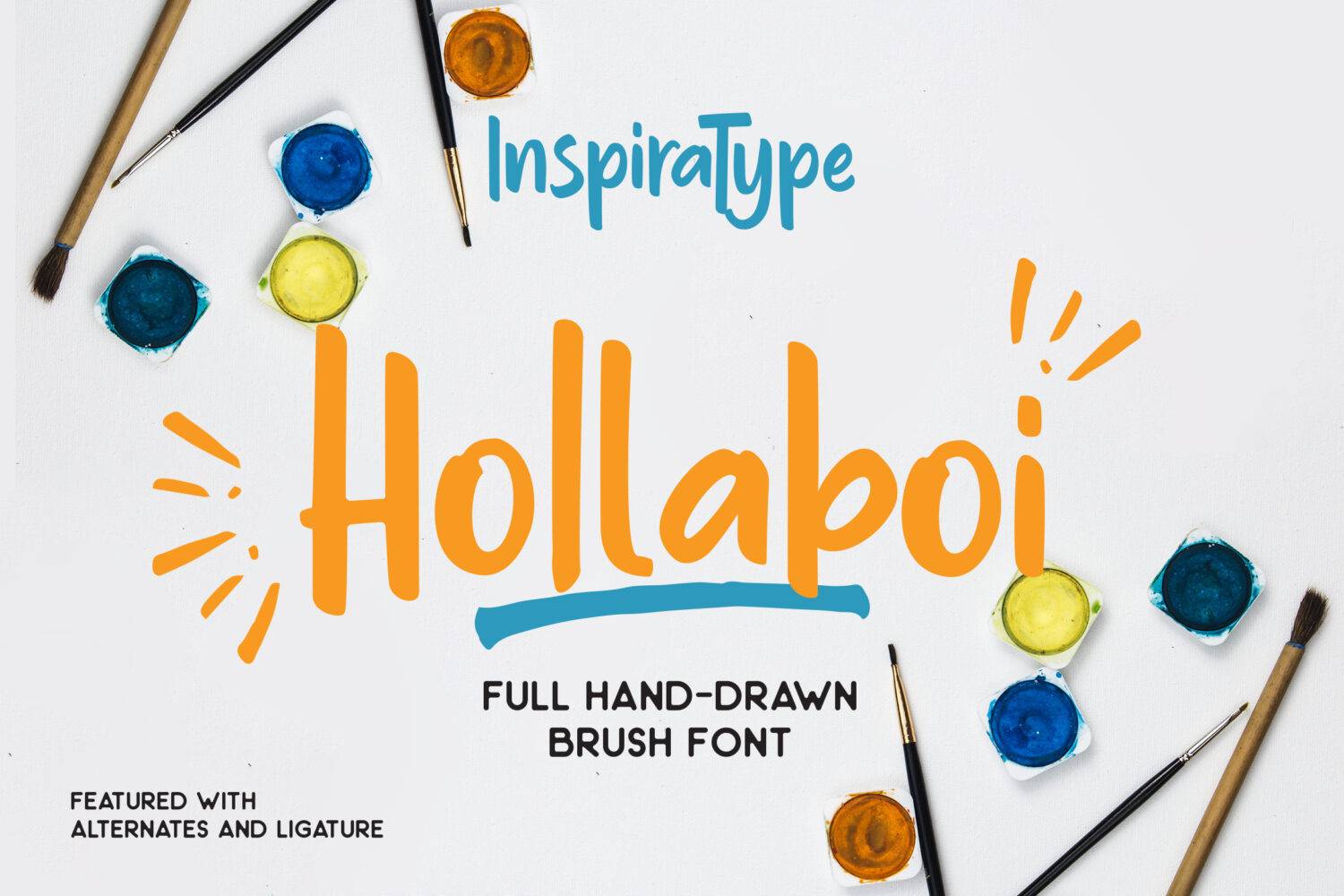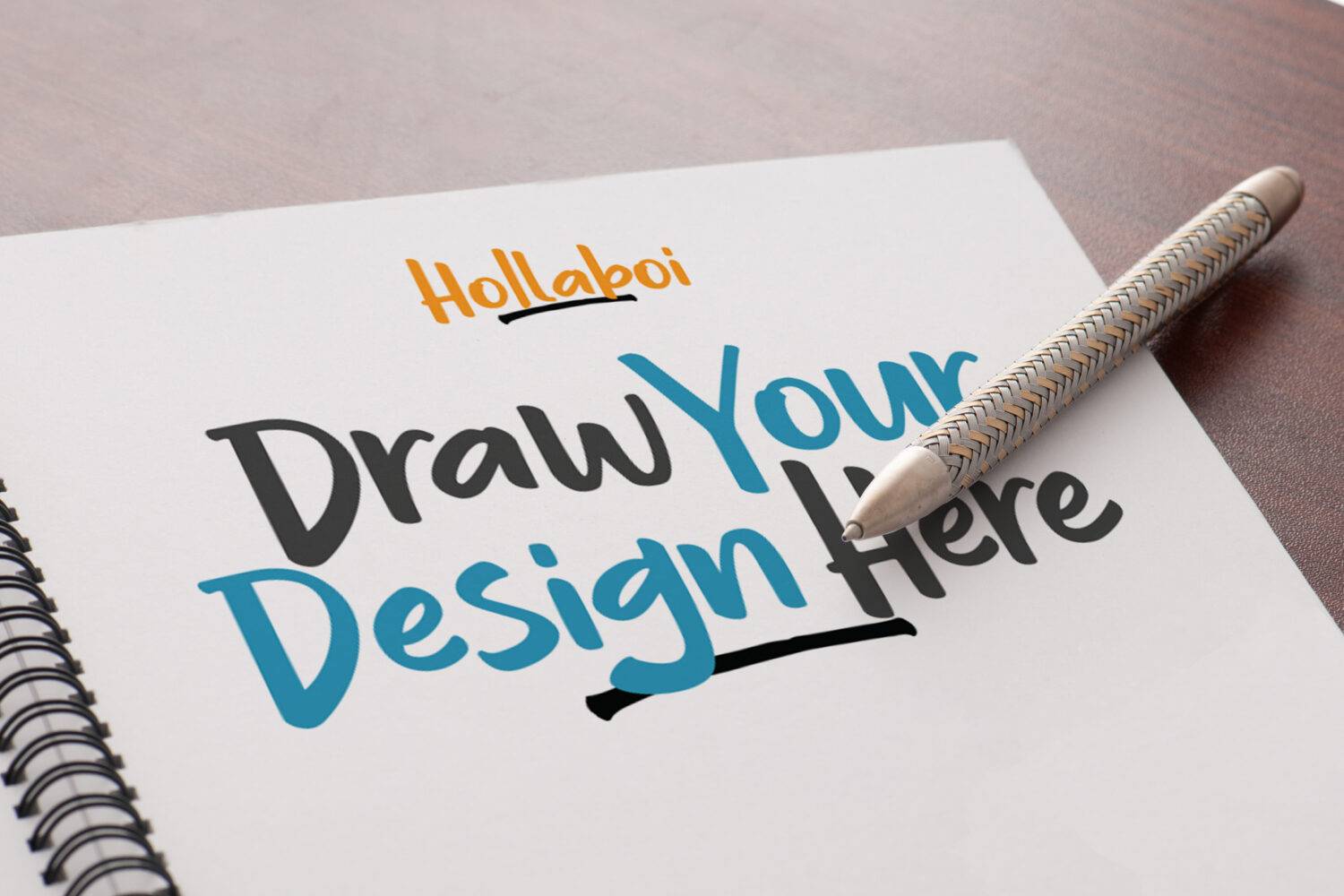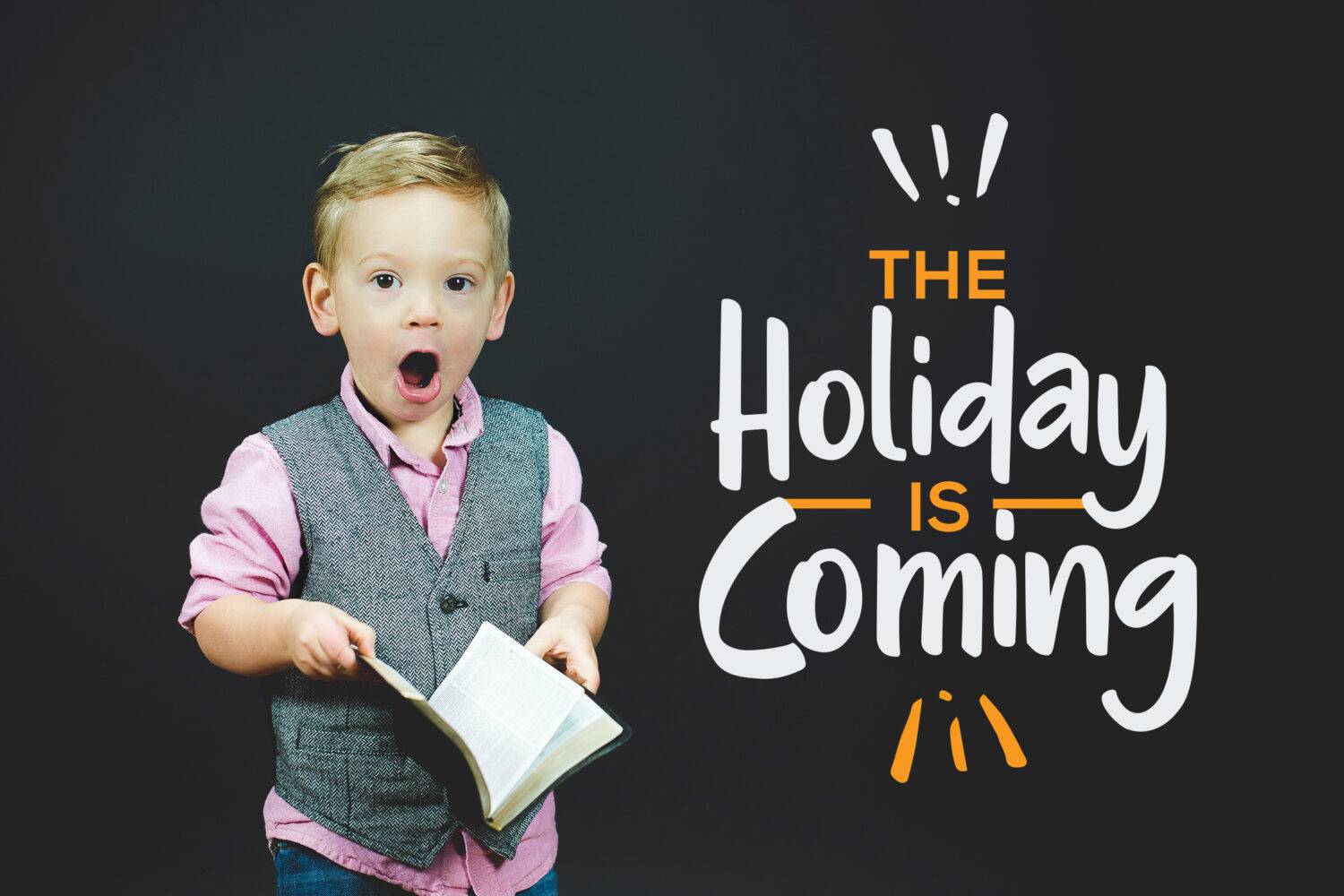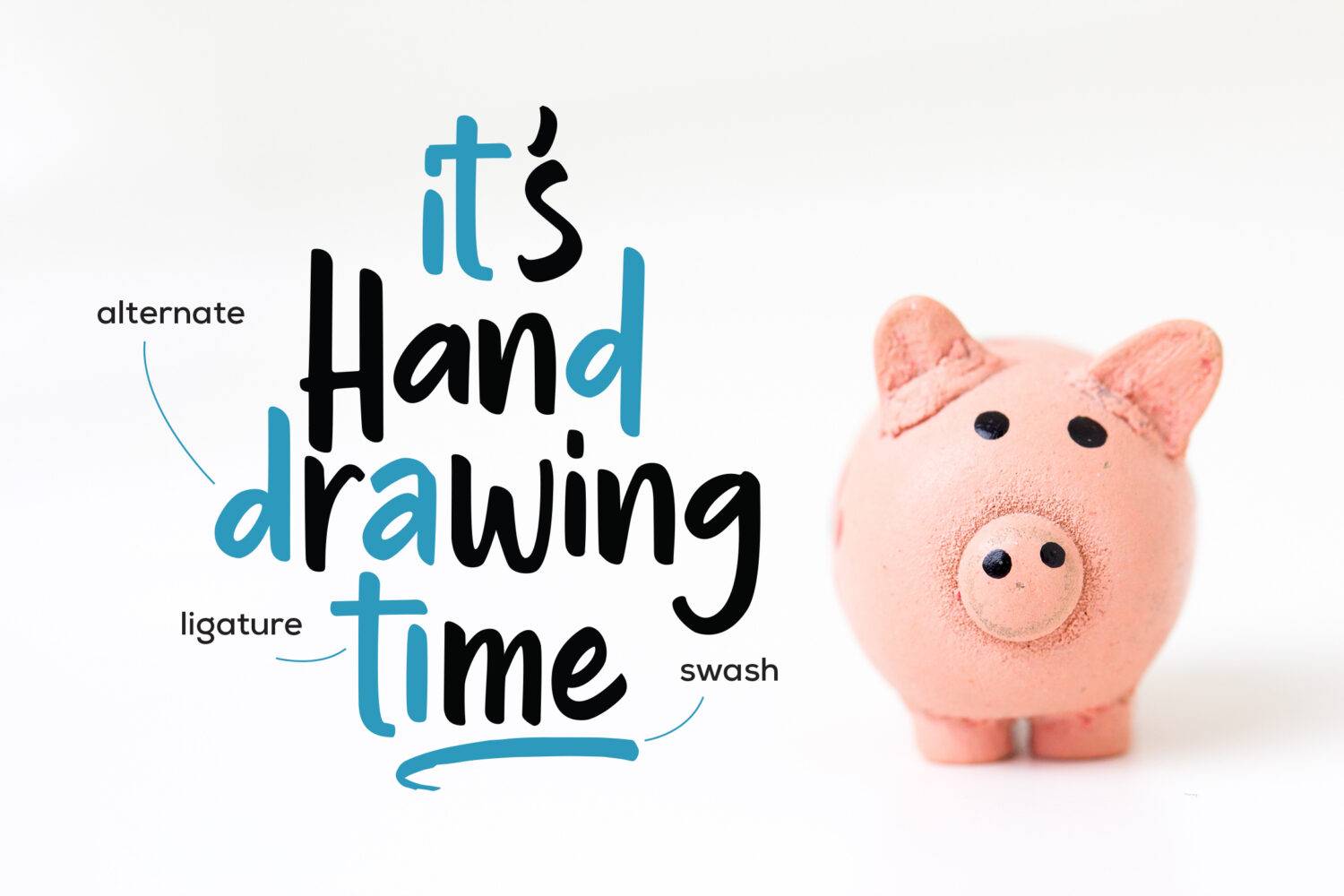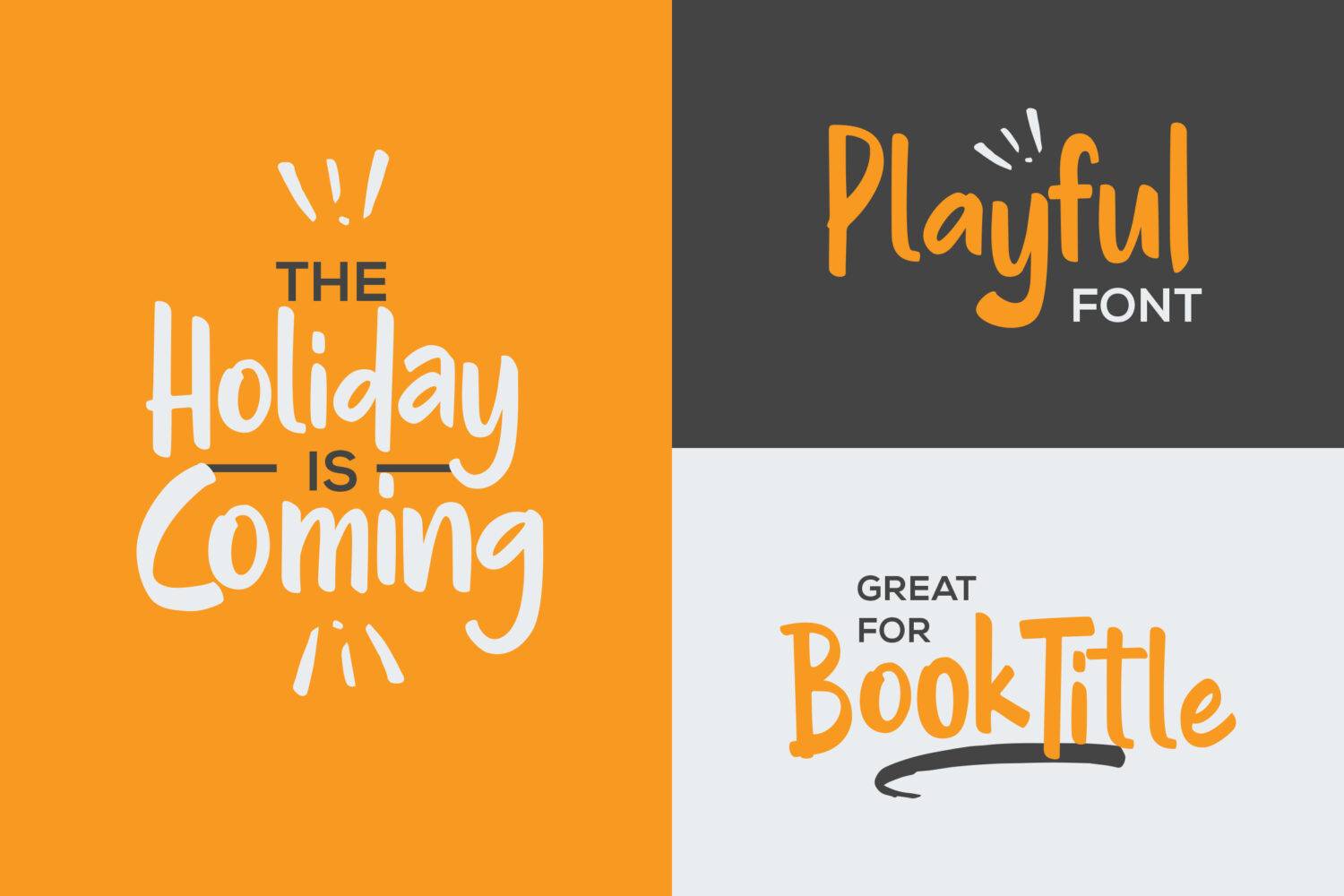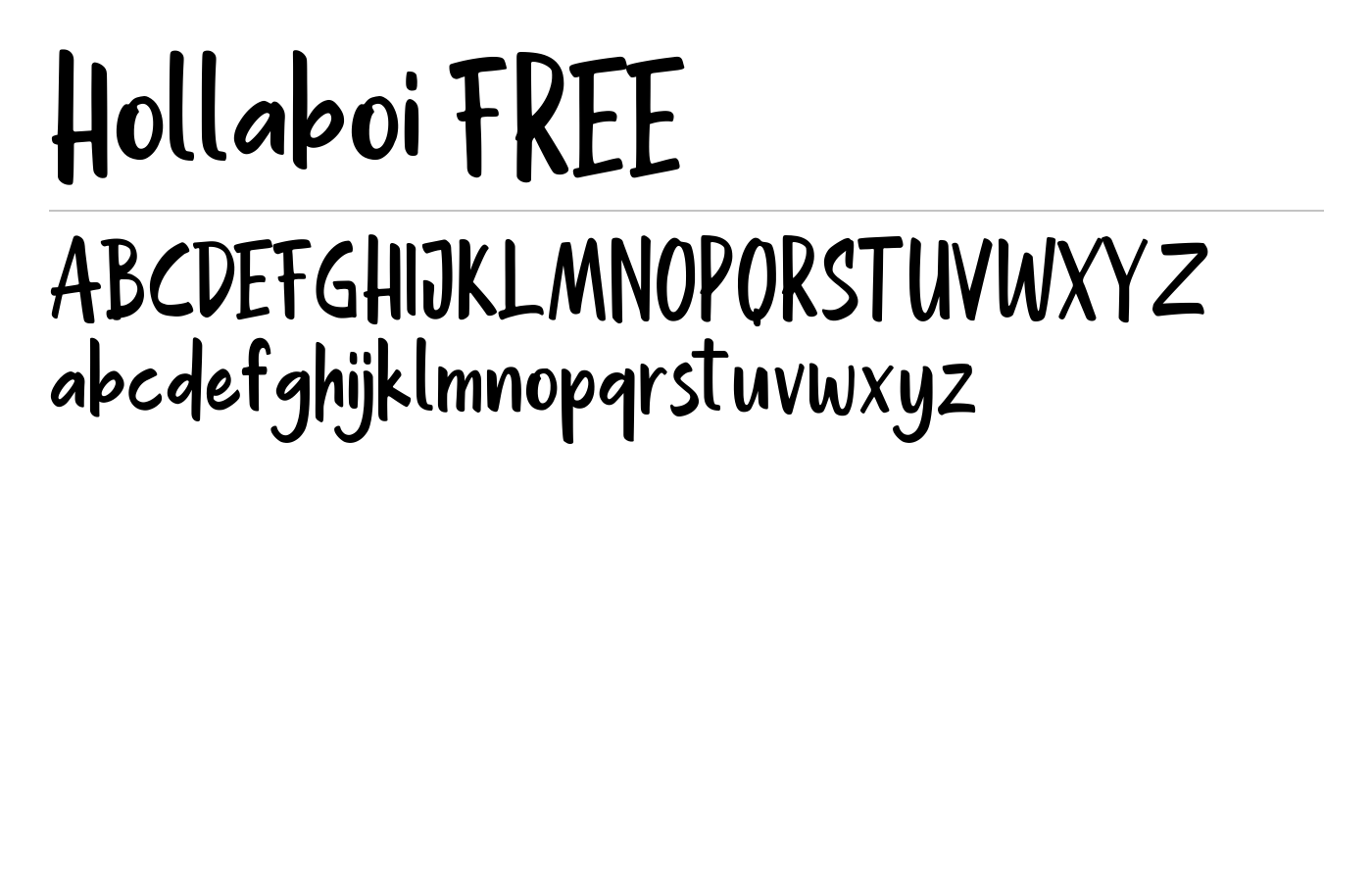
Hollaboi is a playful, hand-drawn sans serif font with a casual, friendly vibe. Its tall, narrow letterforms and uneven strokes give it a lively, authentic feel that works well for informal designs, children’s materials, or creative branding. This font shines in headlines, posters, and projects needing a personal, approachable touch.
Hollaboi Font
About Hollaboi Font
| Font family | Hollaboi Font |
| Designer | inspiratype |